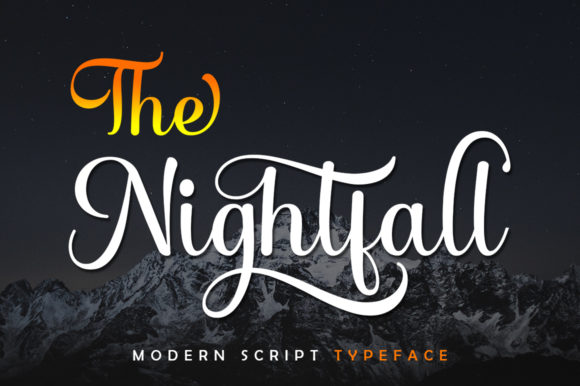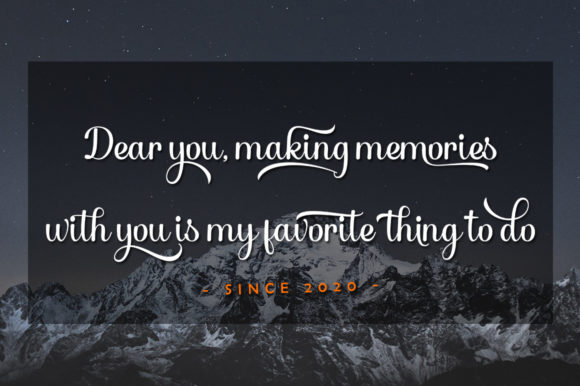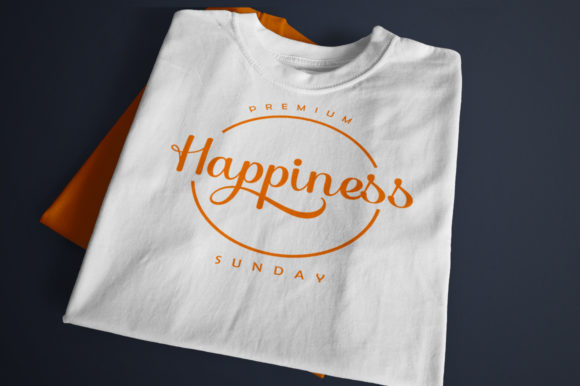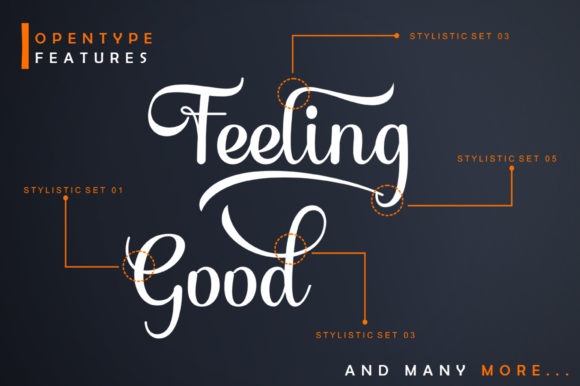
The Nightfall Font
About The Nightfall Font
The Nightfall is a modern script font with a wonderful choice of bold, elegant, and vintage swashes to choose from. This font is PUA encoded which means you can access the available glyphs and swashes with ease!